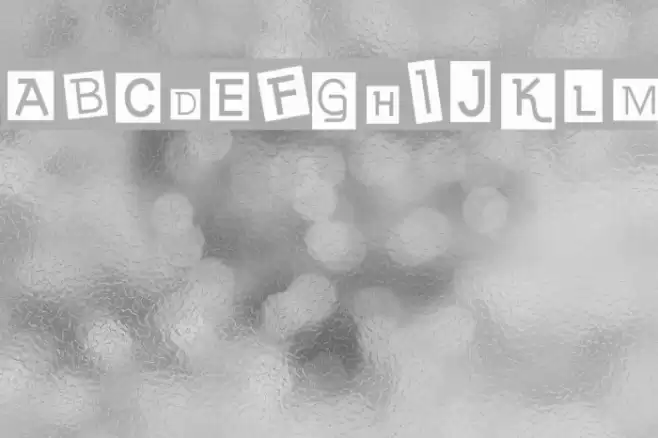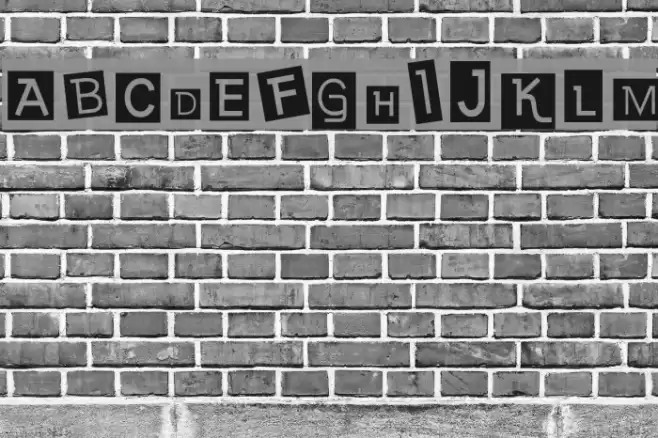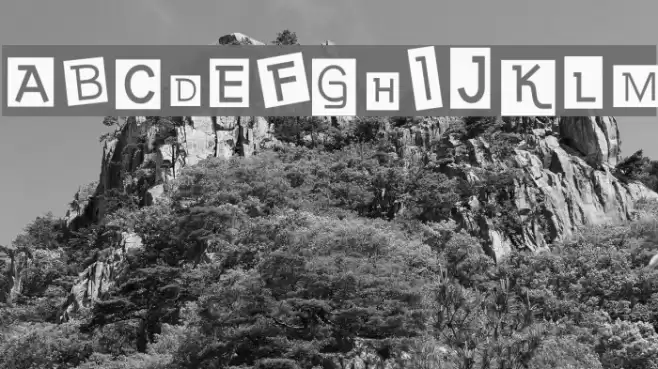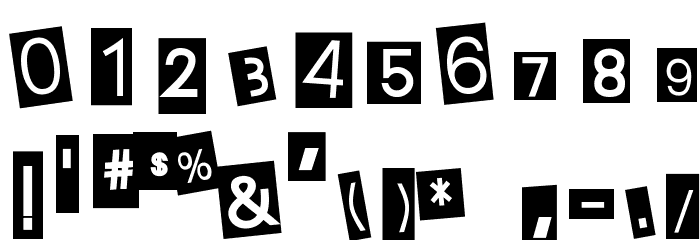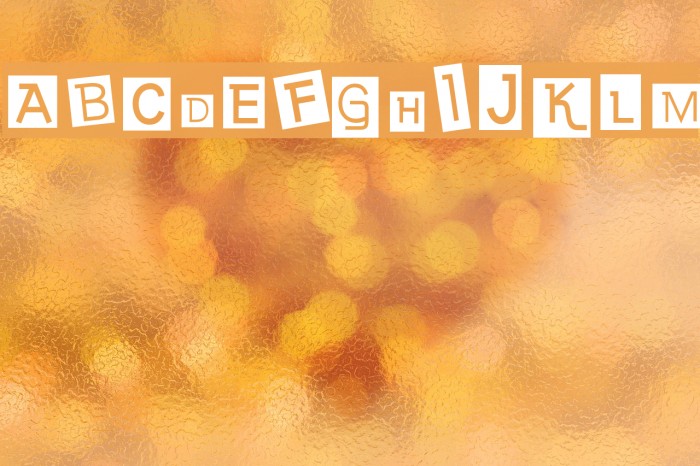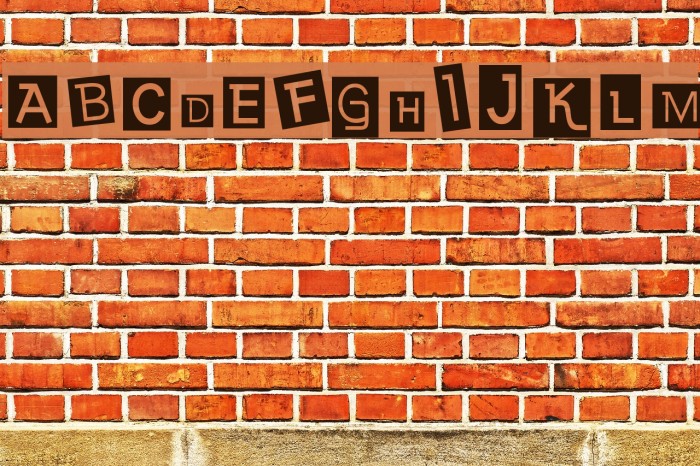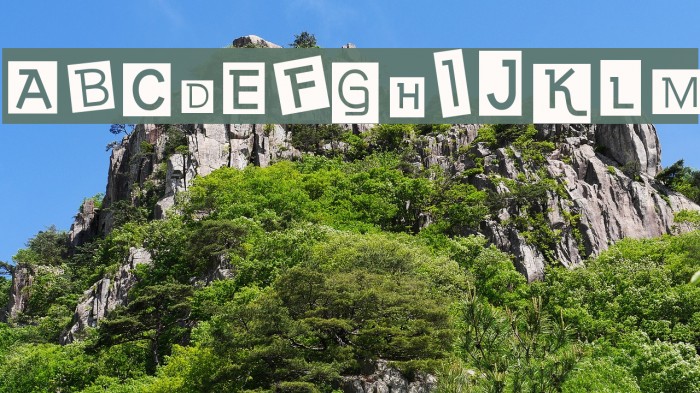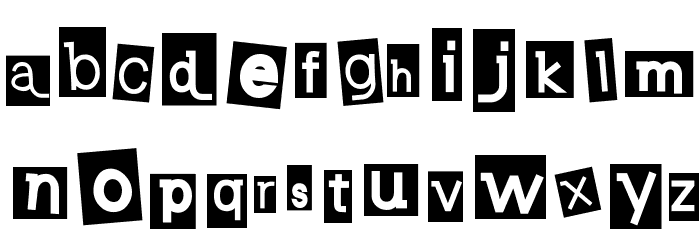
Earwig Factory Font
Earwig Factory Description
This font features a playful and eclectic style, reminiscent of cut-out letters from magazines or newspapers. Each character is uniquely placed on a black or white background, creating a collage-like effect. The letters vary in size and orientation, adding to the chaotic yet artistic appearance. This design choice gives the font a ransom note aesthetic, making it stand out with its bold and unconventional look. The mix of uppercase and lowercase letters, along with numbers and special characters, maintains the quirky and unpredictable theme.
A playful, ransom note-style font with a collage-like appearance from Decorative fonts.
- Proposed Projects: Ideal for creative projects such as posters, album covers, or any design requiring a bold, artistic statement.
- Character Spacing: Varied
- Use Case: Headlines, Posters, Artistic Designs